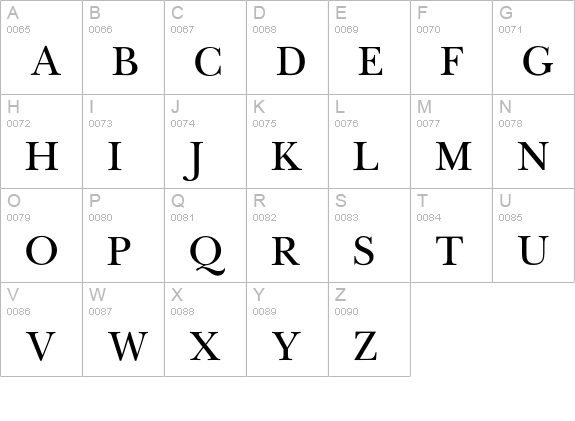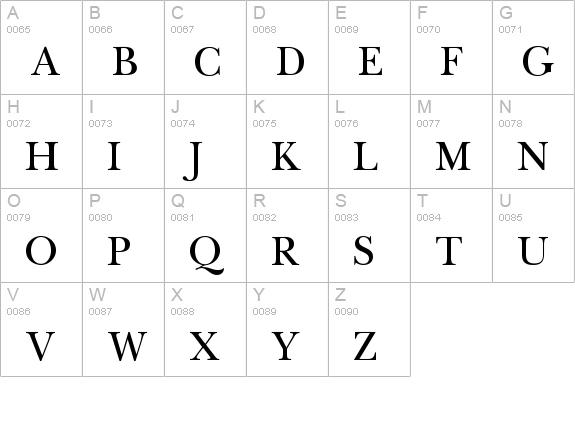
NewBaskervilleRoman Font Details
NewBaskervilleRoman is a classic and elegant serif font that exudes sophistication and timelessness. With its fine details and graceful curves, this font is perfect for adding a touch of refinement to any project. The NewBaskervilleRoman font is meticulously designed to enhance readability and convey a sense of tradition and professionalism. The best part is that NewBaskervilleRoman is available for free download at FontsMarket.com, making it easily accessible for designers and enthusiasts alike. Whether you're working on a formal invitation, a business presentation, or a creative project, this versatile font will elevate your design to the next level. Embrace the beauty and grace of NewBaskervilleRoman in your next project and make a lasting impression with its timeless appeal.